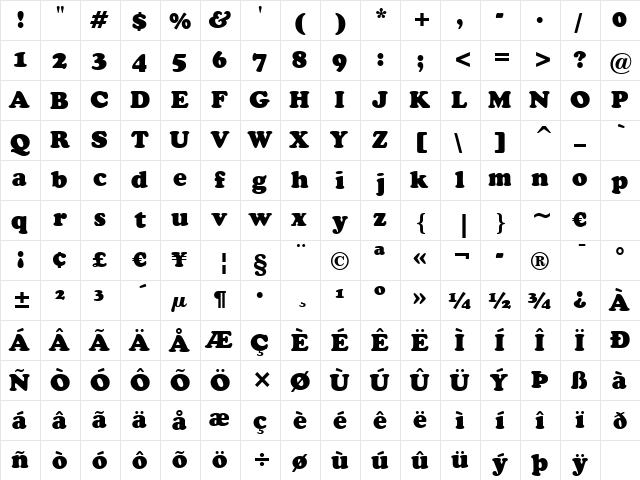
Cooper BlkHd BT Black
Design Context for Cooper BlkHd BT Typeface
Cooper BlkHd BT takes a measured approach to typography — its balanced proportions and neutral character make it a reliable workhorse for both digital and print work.
Pro Tip: Use Cooper BlkHd BT in both headline and body roles to test its range before committing to a single application.